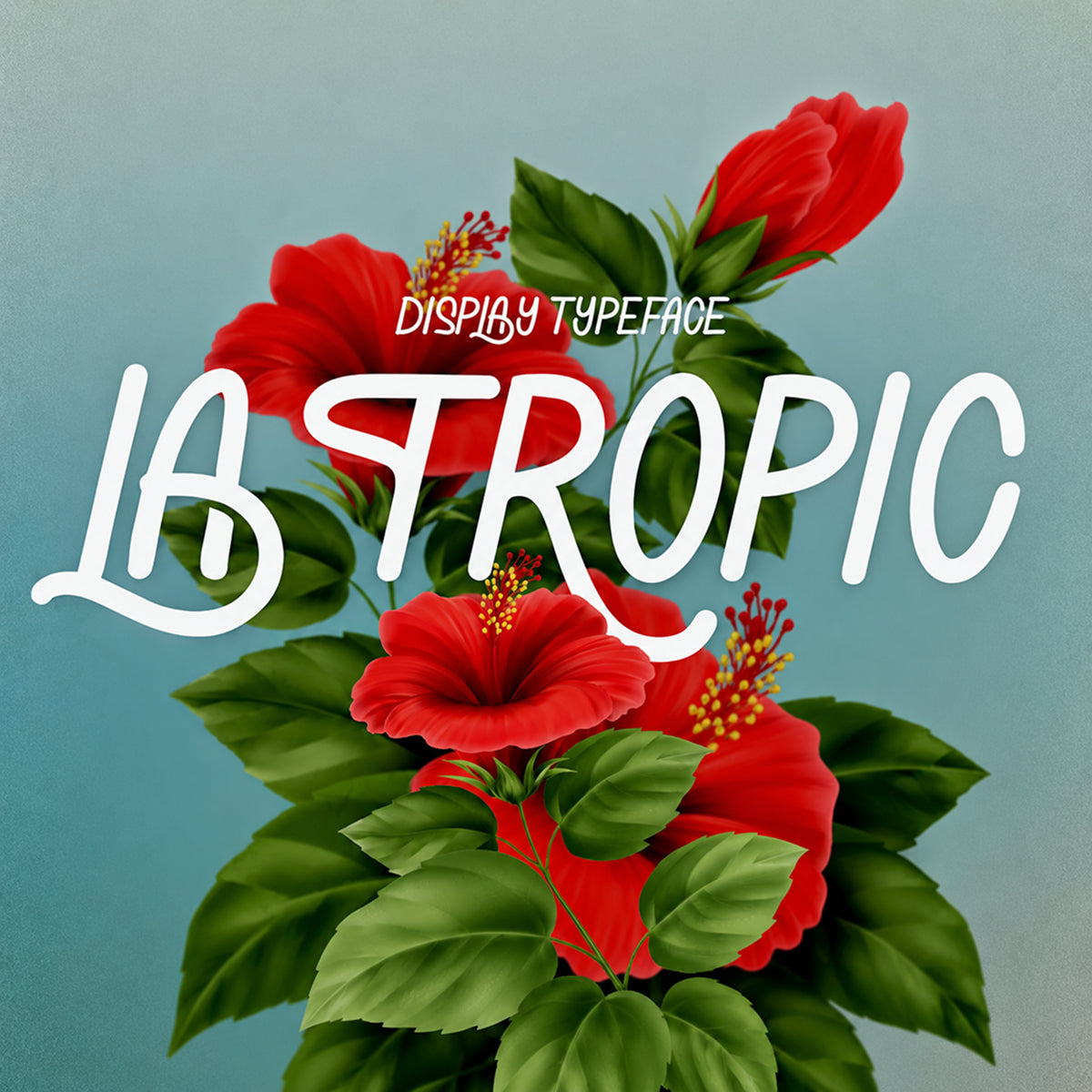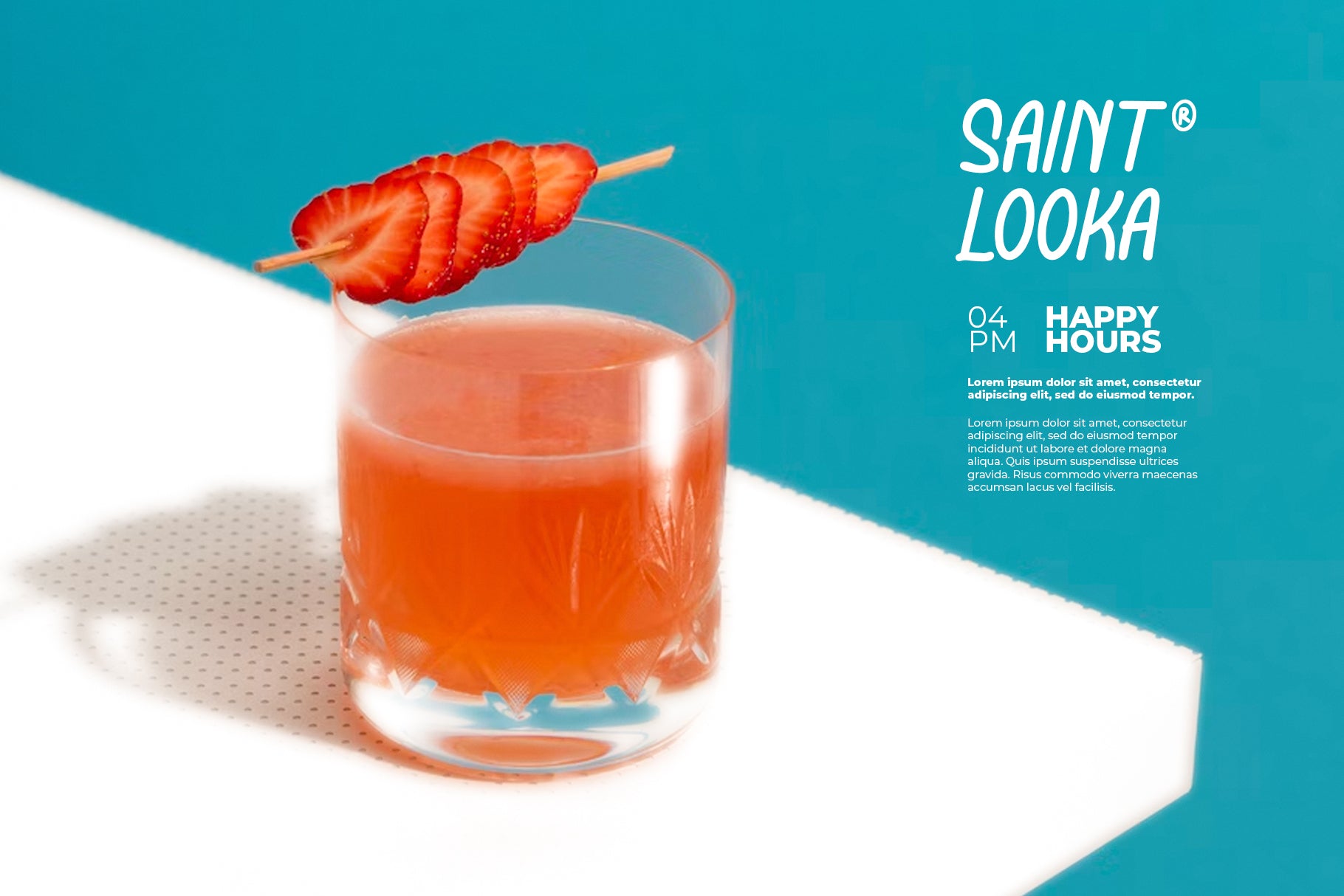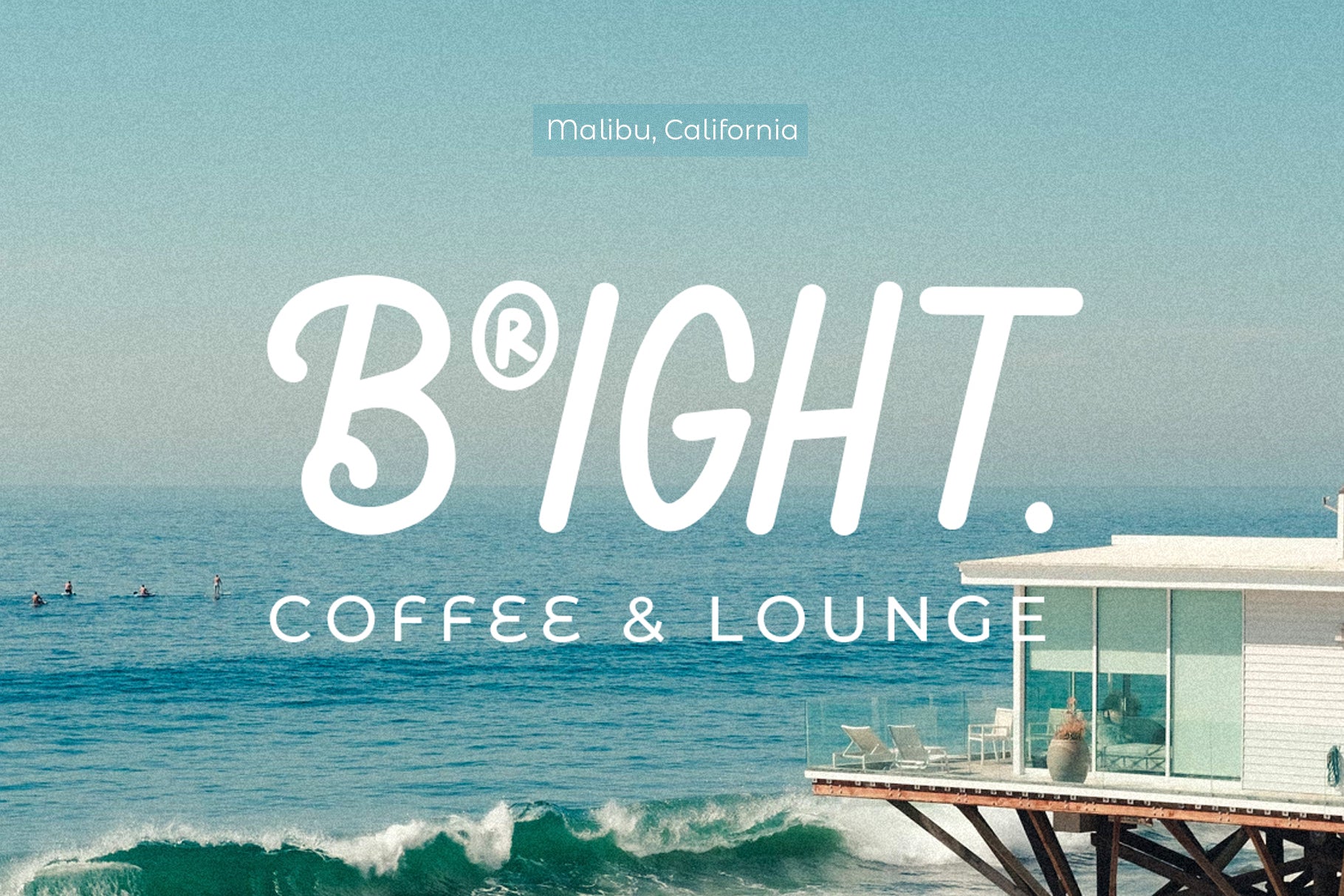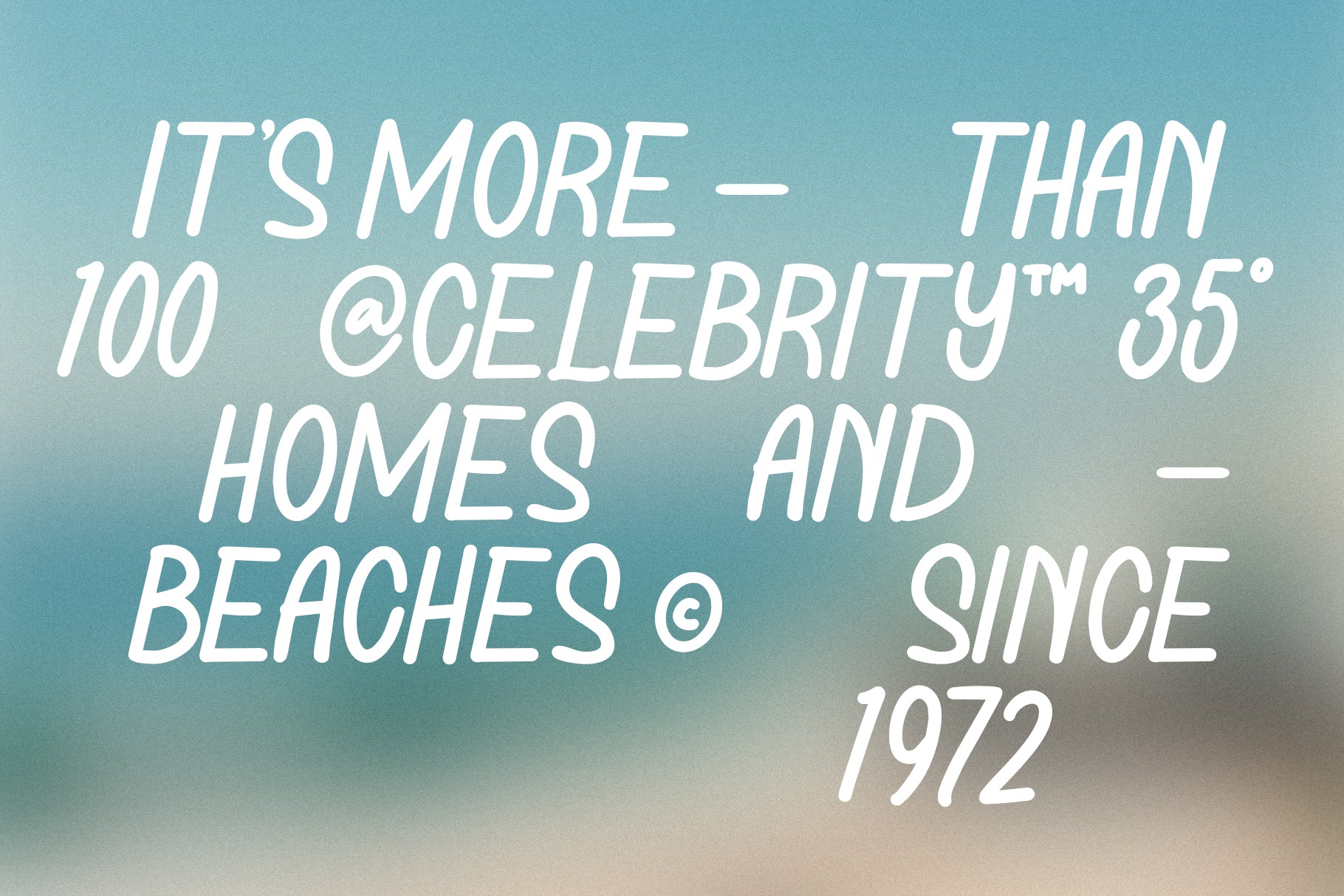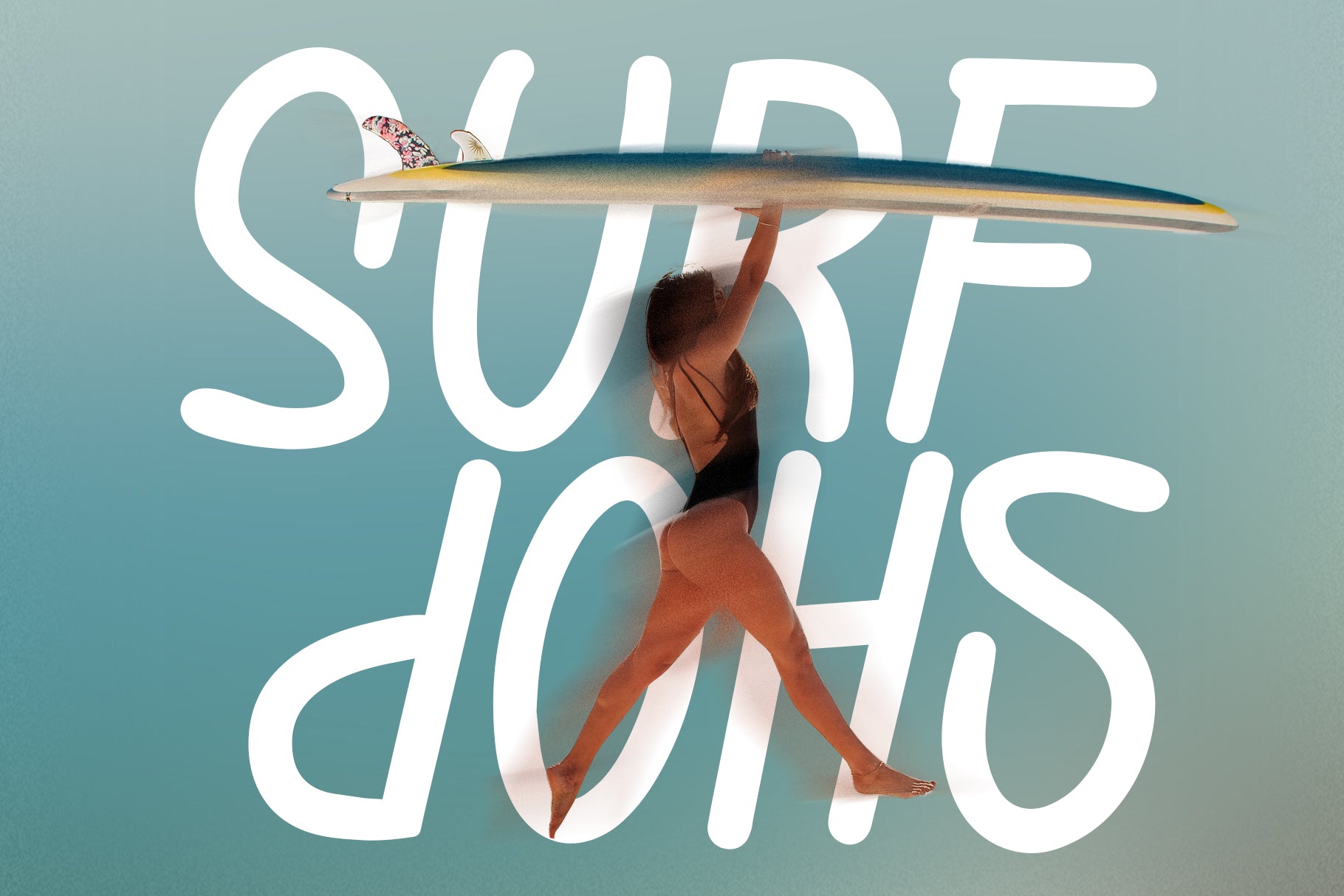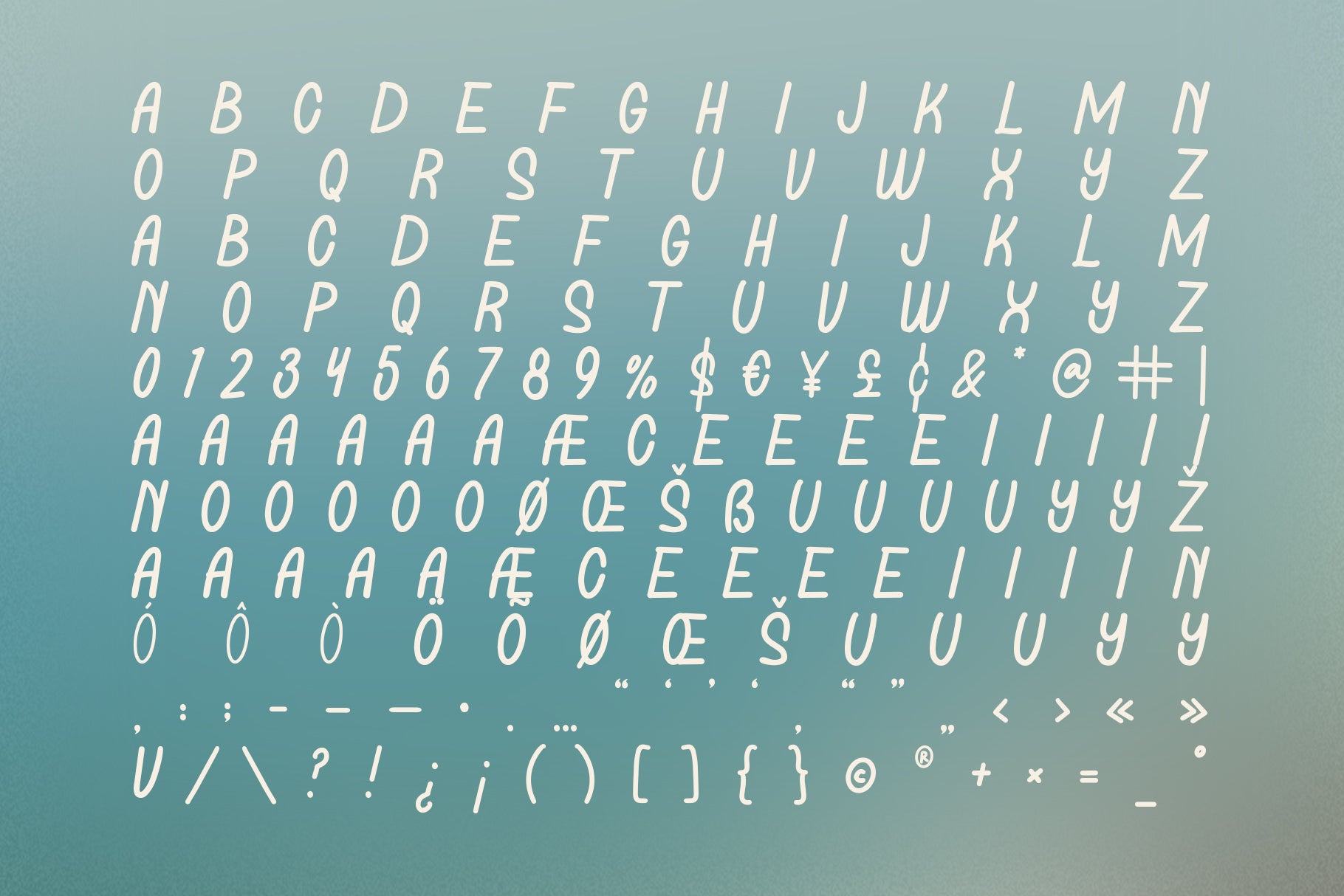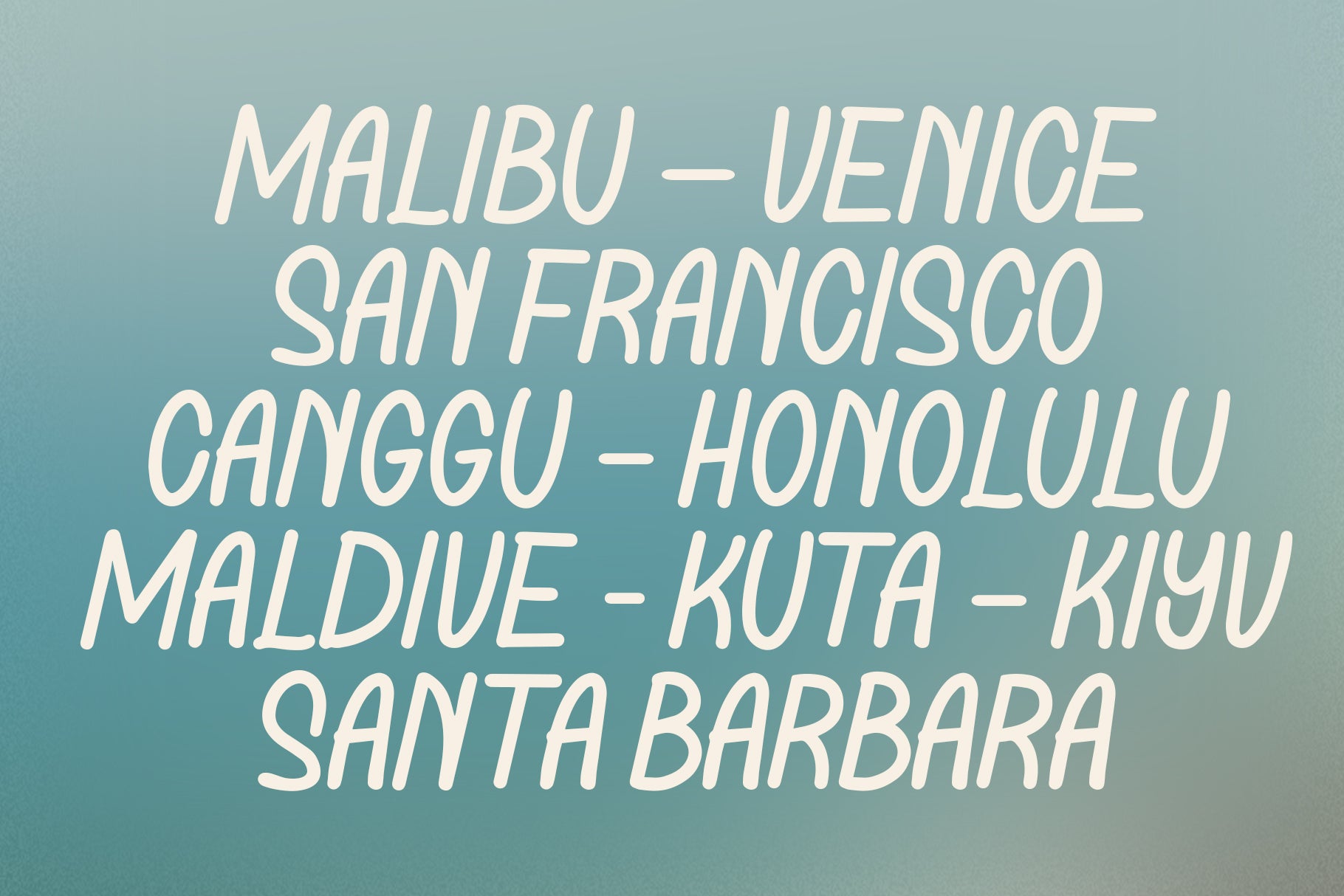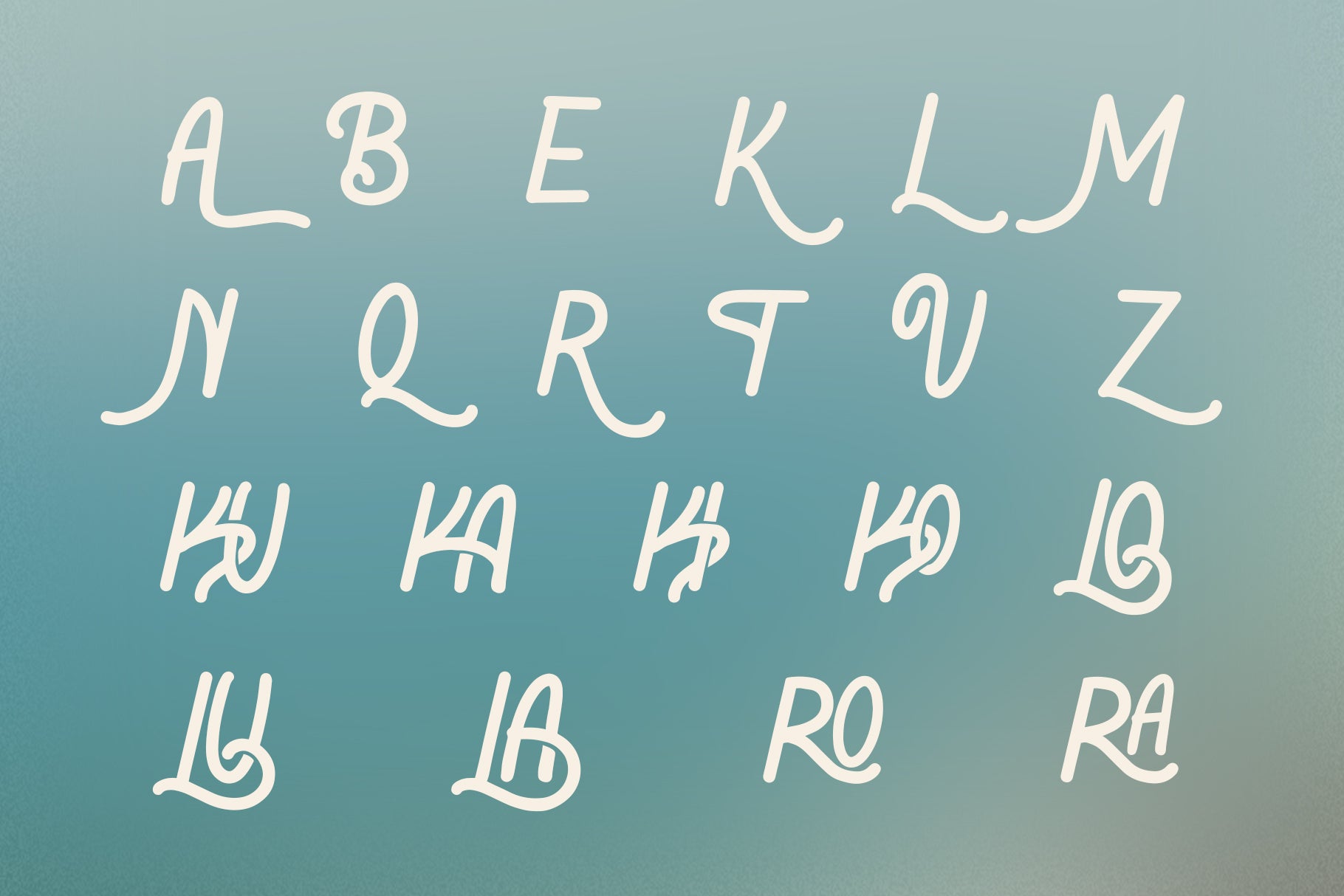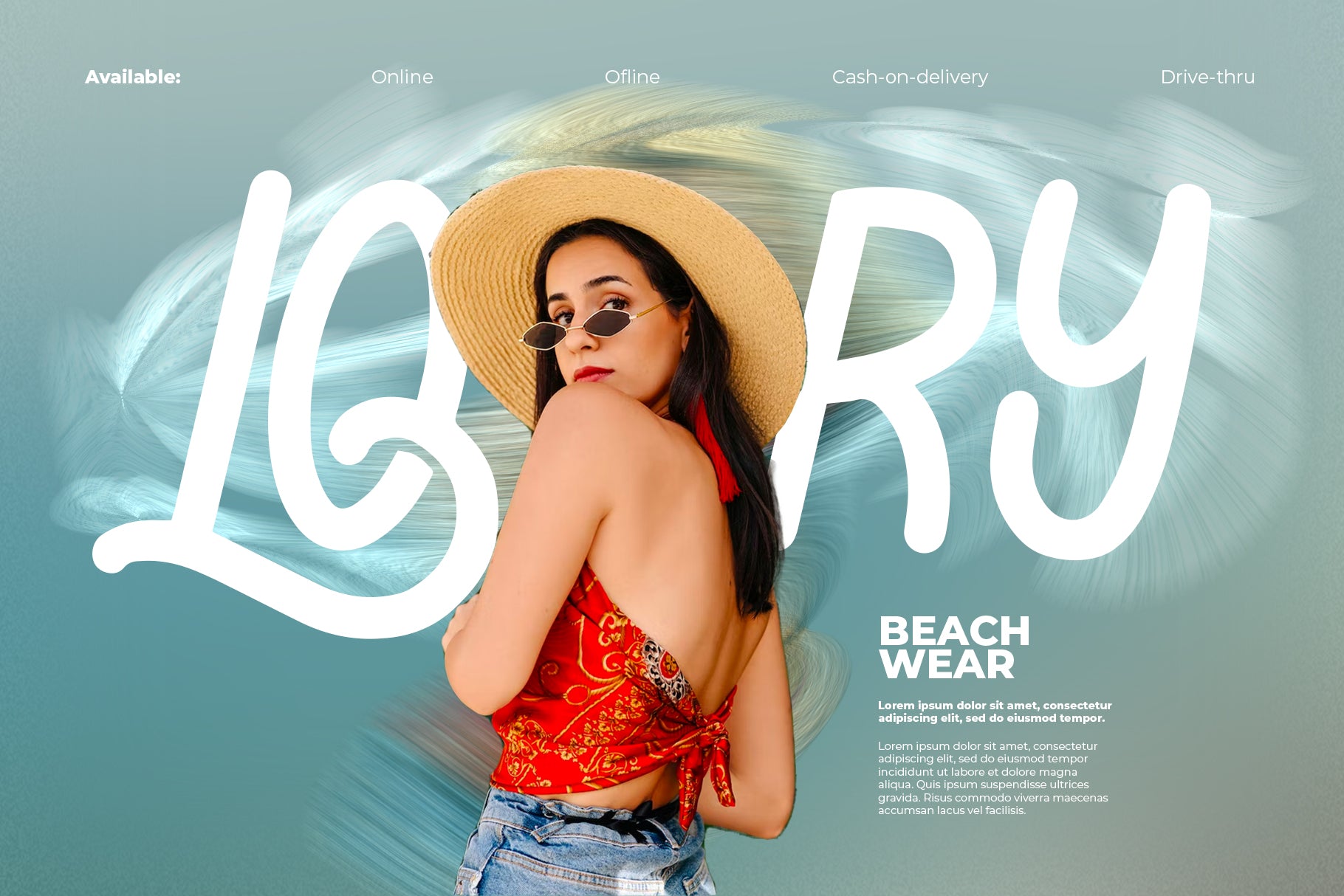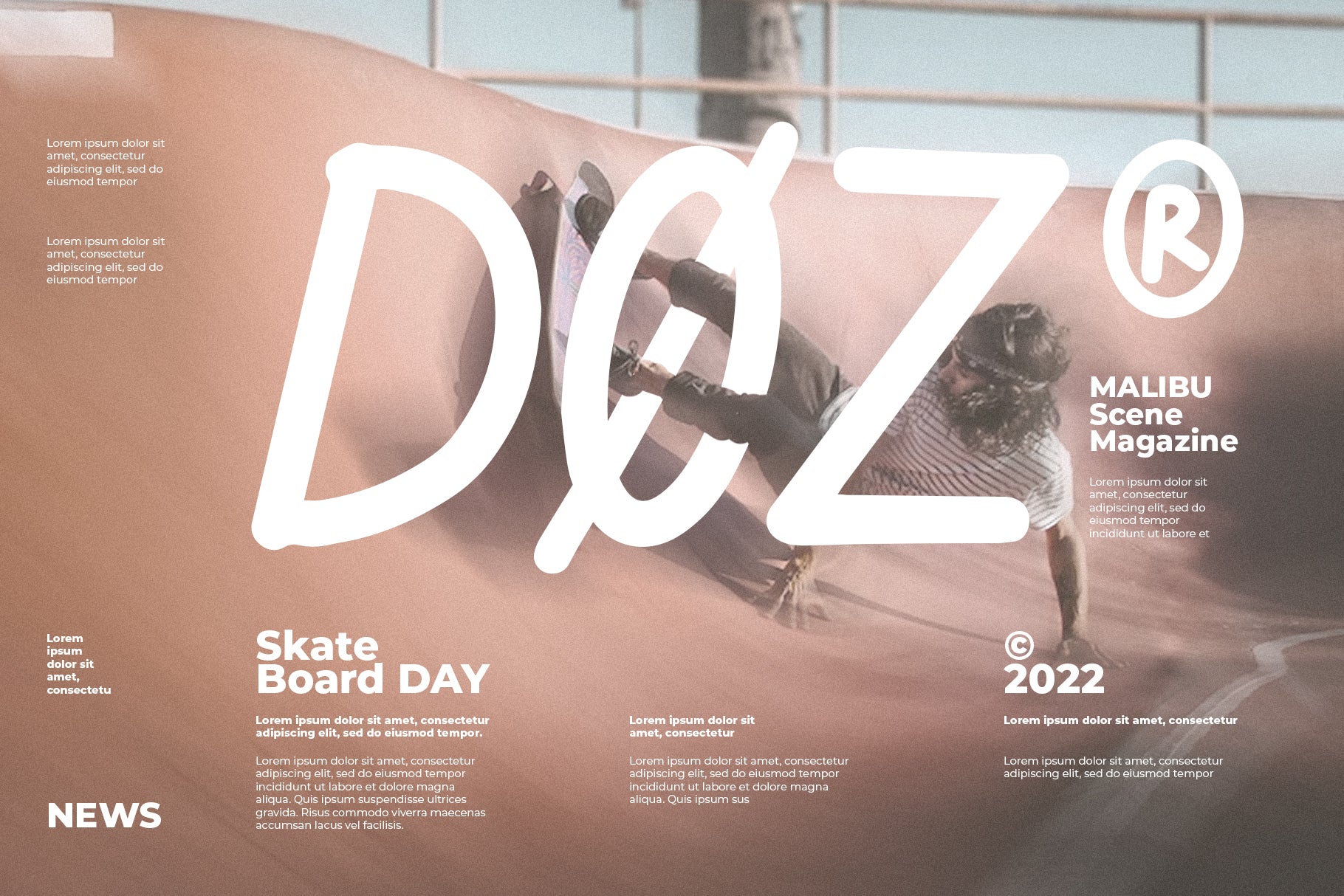
La Tropic Summer Typeface
Introducing La Tropic
A groovy tropical handwriting font, embodies craftsmanship with a natural flow. Its chill and happy style brings crisp modernity to your designs. This font is perfect for inclusive accessibility, adding a touch of boho and Mediterranean vibes to websites, packaging, logos, and more. Explore the unique and original charm of La Tropic, reminiscent of sea, ocean, and the joyous atmosphere of Summer solstices.
Experience the superior features of La Tropic – a font that invites you to relax and embrace the harmony of hot Surfing Beach, Resort Holiday, Travel Vocation, and Paradise Party aesthetics. Whether designing surfboards, signs, or holiday cards, La Tropic's versatility shines through, providing a unique and original choice for a wide range of projects.
La Tropic Summer Typeface is a tropical handwriting font that features a natural flow and modern design, suitable for a variety of projects. It supports multiple languages and embodies a boho aesthetic, making it a versatile choice for designs inspired by summer and beach themes.